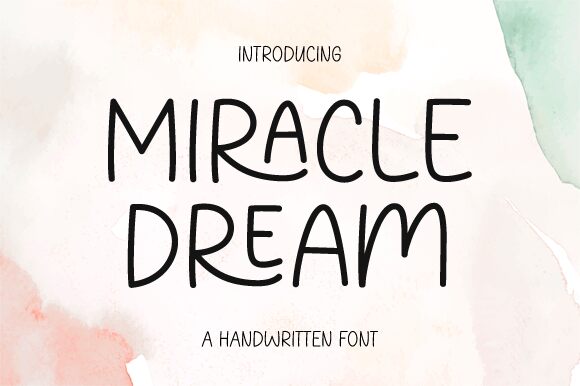
Miracle Dream
Miracle Dream, a creation by Graphix Line Studio, is a handwritten font that carries with it an air of whimsy and personal touch. Its semi-light weight lends a delicate and approachable feel to the script, making it an excellent choice for designs that aim to be both inviting and distinctive. The playful yet elegant strokes suggest versatility—perfect for everything from heartfelt invitations to branding projects that require a hint of individuality.
With its gentle curves and casual elegance, Miracle Dream adds an organic warmth to text, evoking the comfort of a note written by a friend. This font's aesthetic appeal lies in its balance between legibility and character; each letter is crafted with care yet retains an effortless flow. For creative endeavors seeking to capture the essence of human touch within their typography, Miracle Dream emerges as a fitting candidate, infusing projects with its unique charm and style.